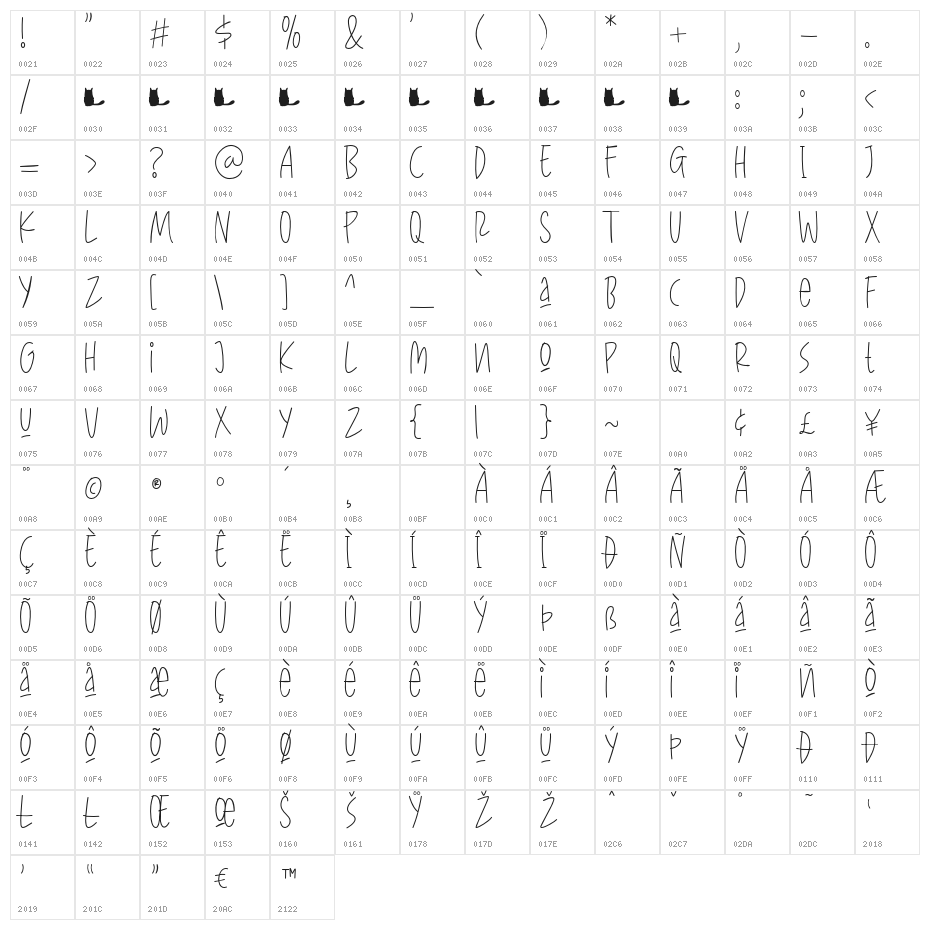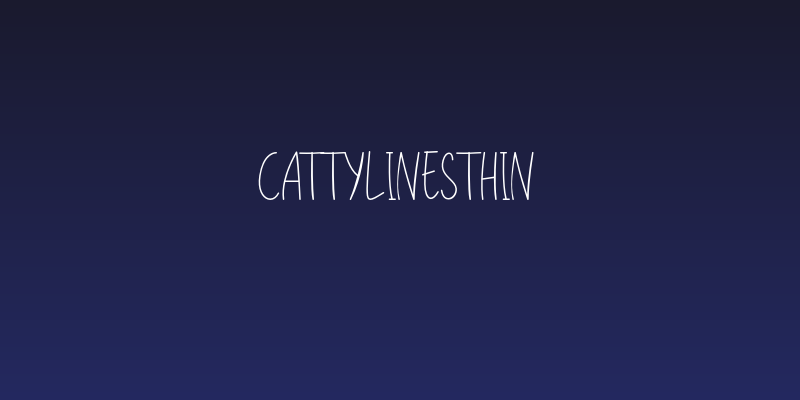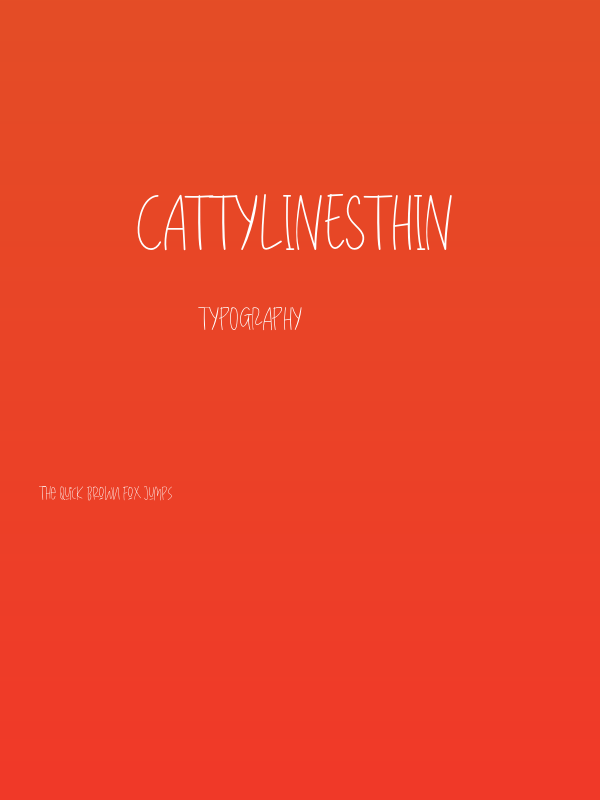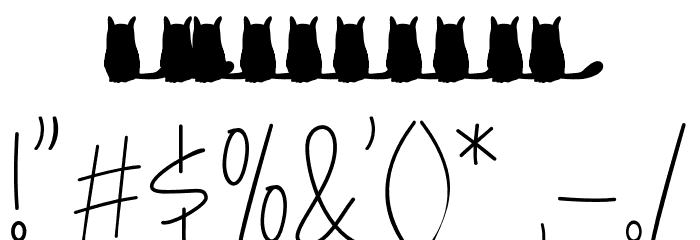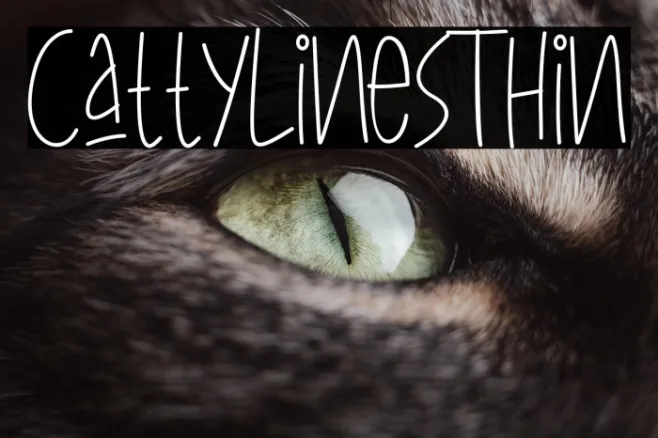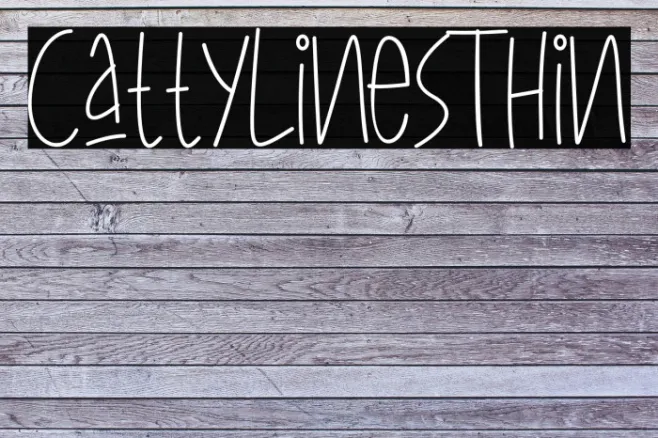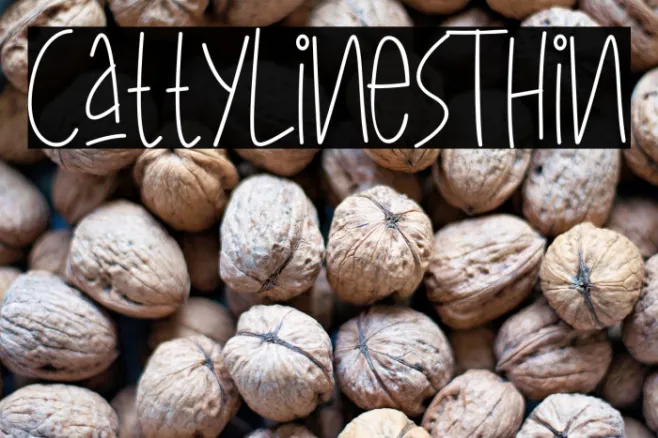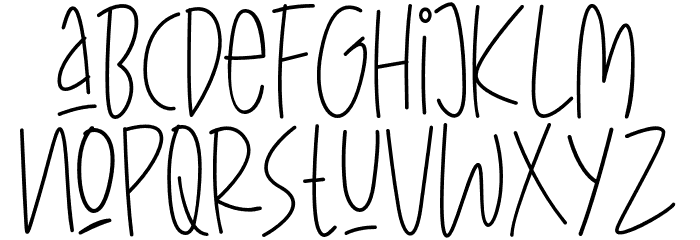
CattyLinesThin Font
CattyLinesThin Description
This playful and whimsical font features tall, thin letters with a hand-drawn aesthetic. The strokes are uneven, giving it a casual and friendly appearance. The uppercase and lowercase letters maintain a consistent style, with elongated forms and slight curves that add to its charm. The inclusion of cat silhouettes as decorative elements adds a unique and quirky touch, making it stand out. The special characters are creatively designed, maintaining the overall playful theme. This font is perfect for projects that require a fun and informal vibe.